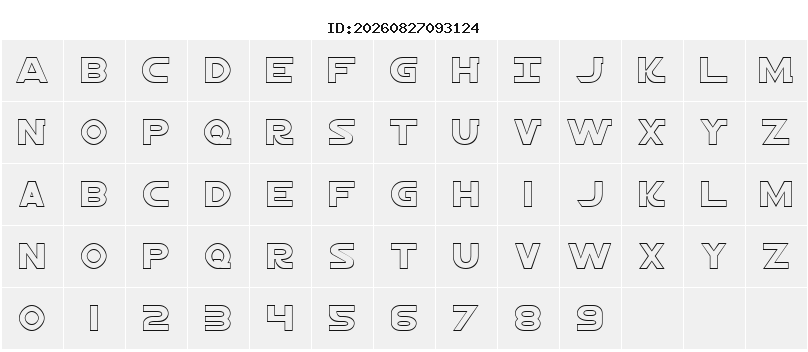
370-CAI978 Preview
• Font Name: 370-CAI978
• Full Font Name: 370-CAI978
About 370-CAI978.ttf
370-CAI978.ttf is a modern, elegant sans-serif font designed for ultimate readability and visual harmony. Perfect for branding, headlines, web design, and print materials.